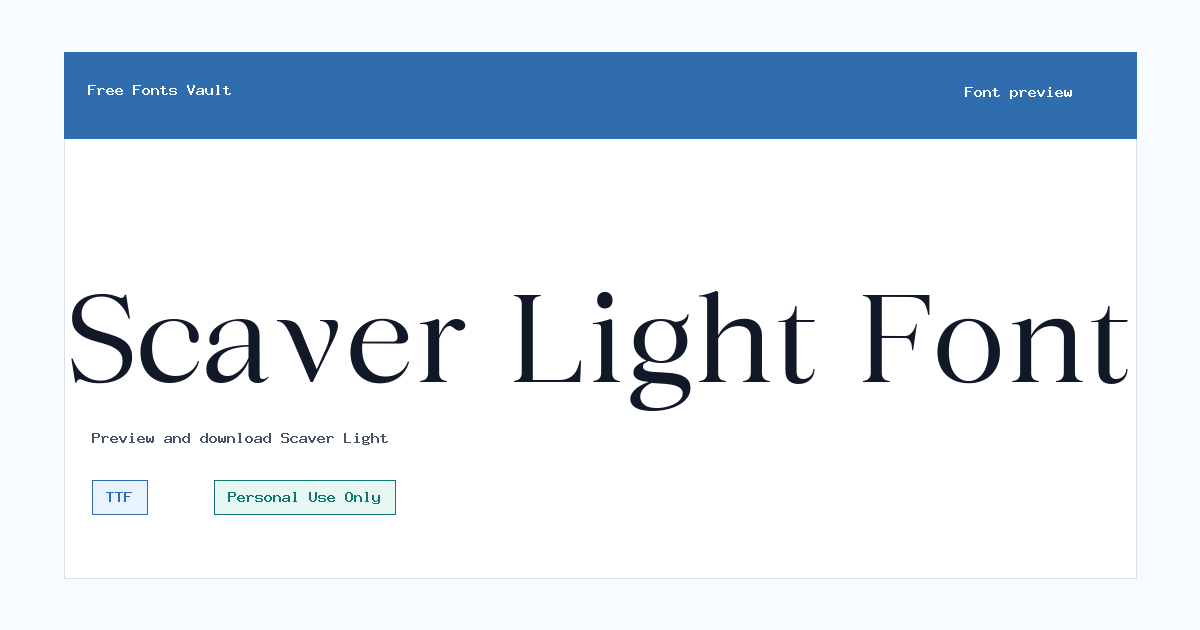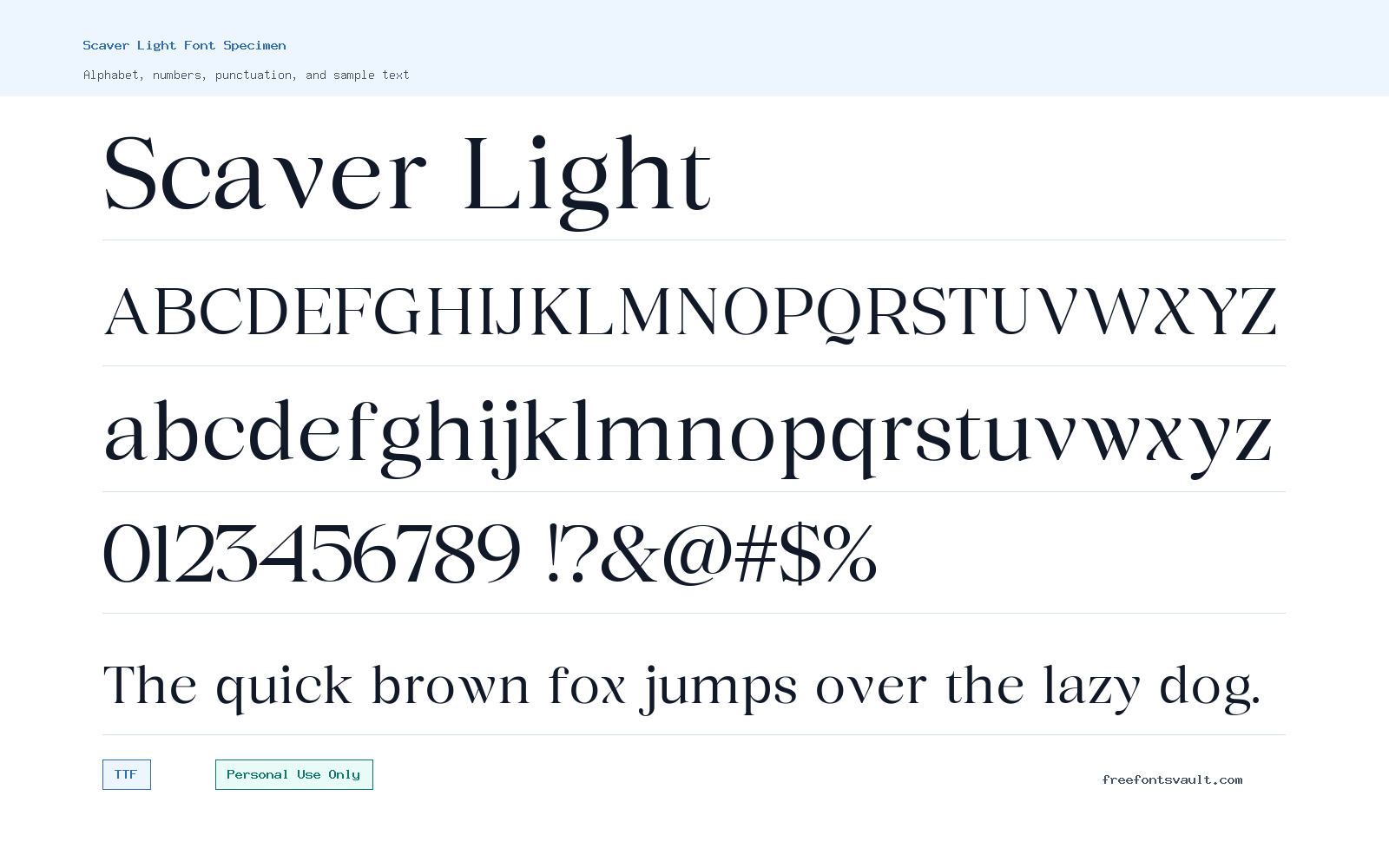
Scaver Light
- Designer Glyphminds Studio (Graphicted.Co)
Scaver Light is a light-weight serif font with a clean, polished look for display typography. It comes in regular and italic TTF files, giving you two simple style choices for elegant headings, invitations, and short design text.
About Scaver Light
Scaver is described as a modern serif family, and this download focuses on its Light weight. The thin letterforms are best suited to designs where space, contrast, and a refined serif shape matter more than heavy impact. Use it for short headlines, brand mood boards, editorial-style titles, fashion or beauty layouts, wedding text, packaging mockups, and social graphics where a lighter serif can feel calm and upscale without becoming loud.
Because this is a light serif, preview it at the size you plan to use before downloading. Thin strokes can look beautiful in large titles, but they may lose clarity in small captions, long paragraphs, low-resolution images, or busy backgrounds. Try the regular style for clean titles and the italic style for softer emphasis, quotes, names, or secondary lines. If your design needs body text, pair Scaver Light with a simple sans serif or a sturdier serif for better reading comfort.
- Light serif styling works best for display text, elegant headings, invitations, and short visual layouts.
- Logos, branding mockups, fashion graphics, beauty layouts, and editorial-style title treatments.
- Wedding invitations, quote graphics, packaging concepts, social posts, and other short text designs.
Designer metadata names Glyphminds Studio (Graphicted.Co) as the creator. No additional foundry details are confirmed here.
For the best result, test both the regular and italic styles in the live preview with your own words. Use larger sizes, give the letters enough spacing, and place the text on a simple background so the light strokes stay readable. Avoid using it for dense paragraphs unless your layout proves it remains clear.
What kind of projects suit Scaver Light?
It suits short display text such as titles, logos, invitations, editorial headings, fashion graphics, beauty layouts, packaging mockups, and quote designs.
Can I use Scaver Light for paragraphs?
It is better for headings and short text. Since the strokes are light, long paragraphs or very small sizes may be harder to read, especially on busy backgrounds.
Should I use the regular or italic style?
Use the regular style for clean titles and main display text. Use the italic style for emphasis, quotes, names, subtitles, or a softer secondary line.